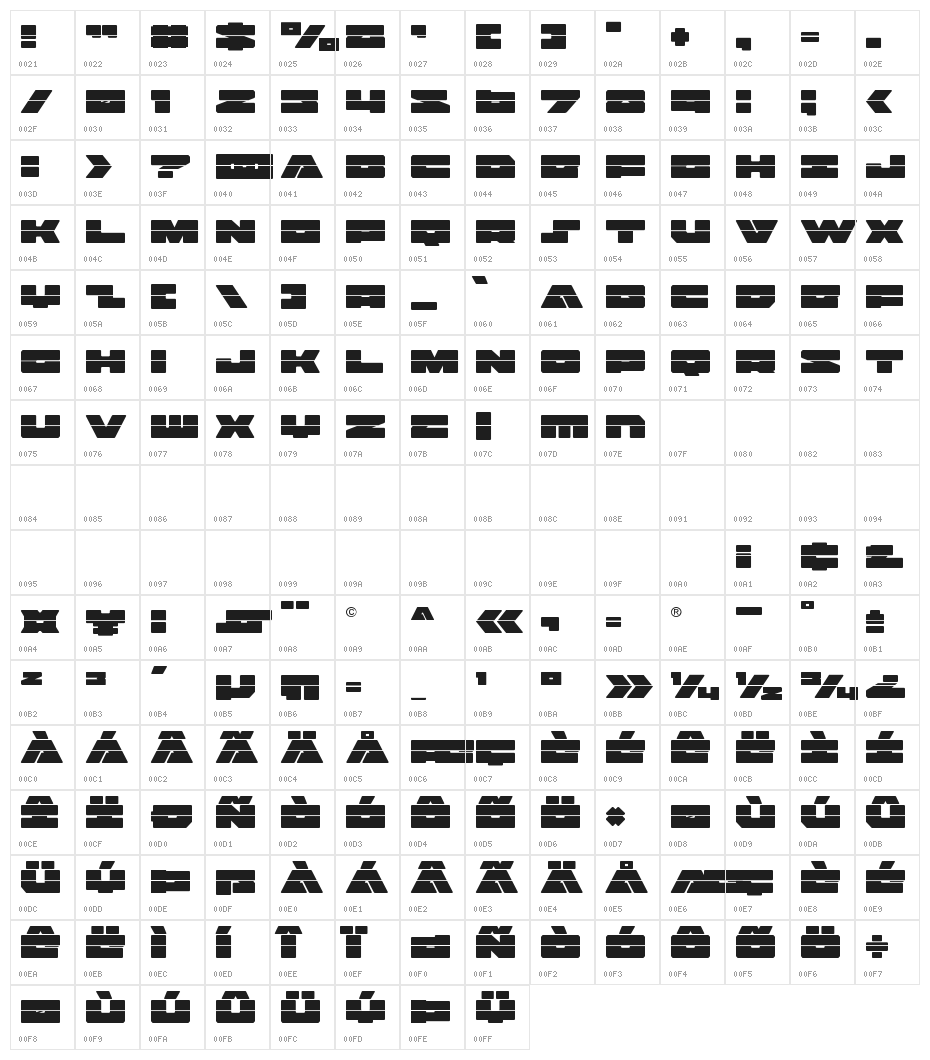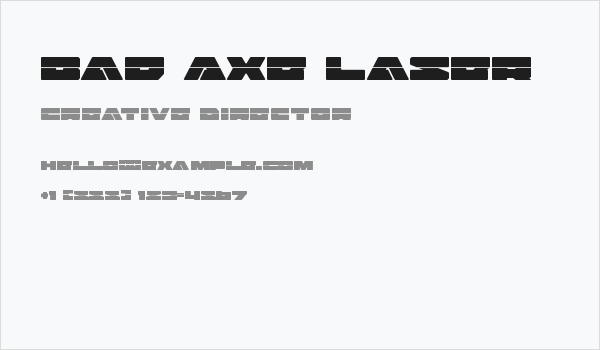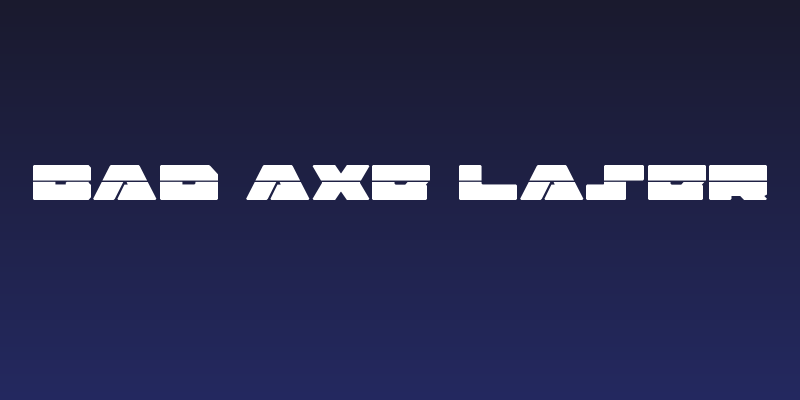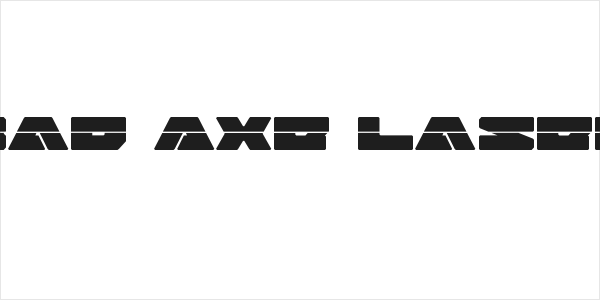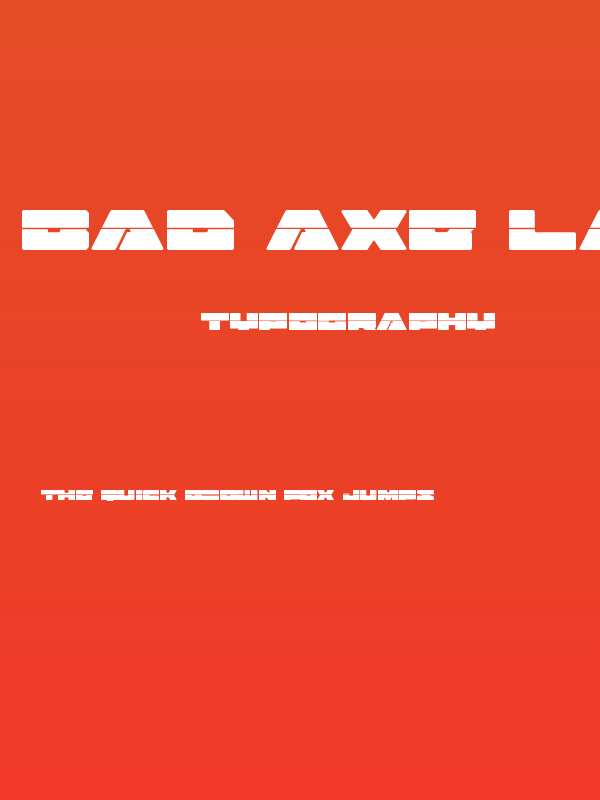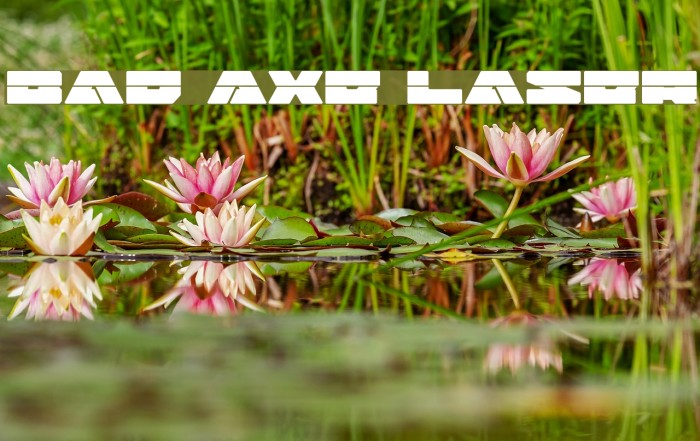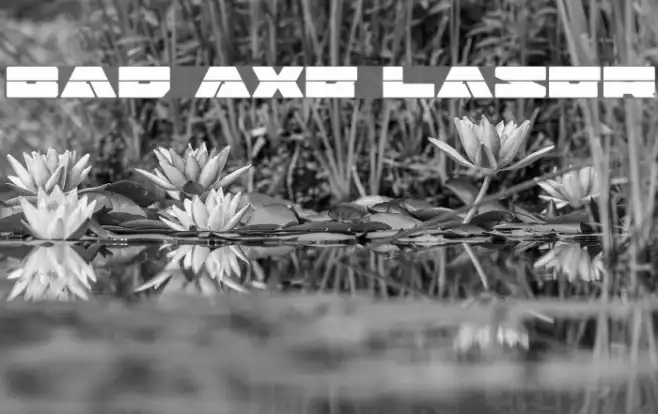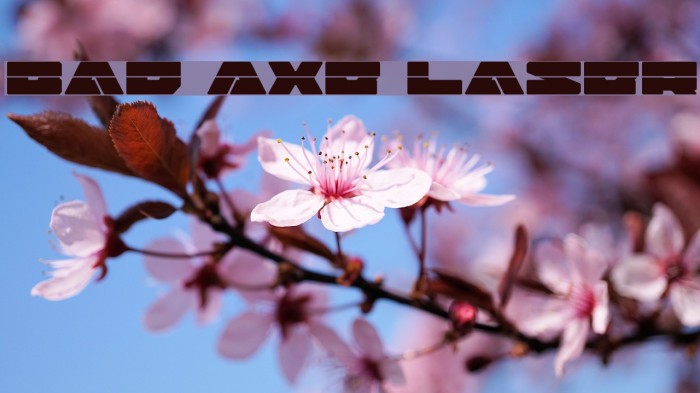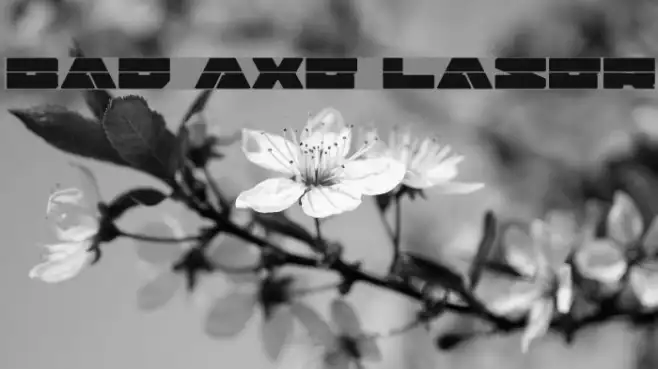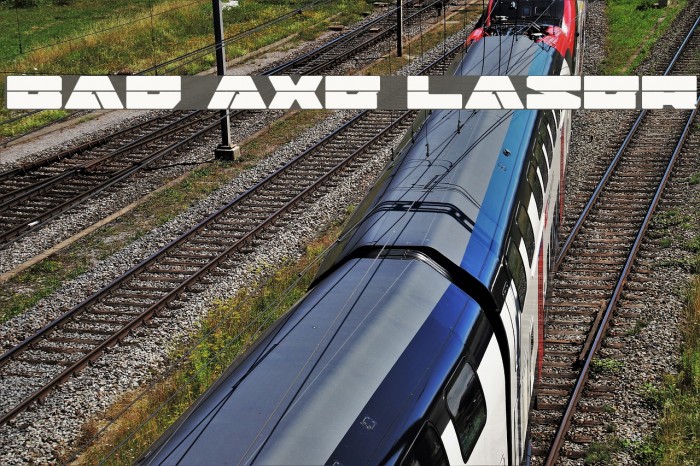
Bad Axe Laser Font
Bad Axe Laser Description
This font features a bold, geometric design with a futuristic and industrial aesthetic. The characters are constructed with sharp angles and thick lines, creating a strong visual impact. The uppercase and lowercase letters maintain a consistent style, with a blocky appearance that suggests a sense of strength and stability. The numerals and special characters follow the same design principles, ensuring uniformity across all glyphs. This font is ideal for projects that require a modern and edgy look, such as technology branding, video game titles, or sci-fi themed designs.
| Overall Style | Futuristic, Industrial |
| Proposed Projects | Ideal for technology branding, video game titles, sci-fi themed designs, and industrial-themed posters. |